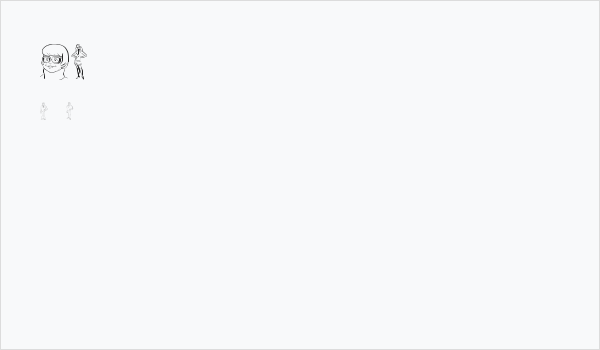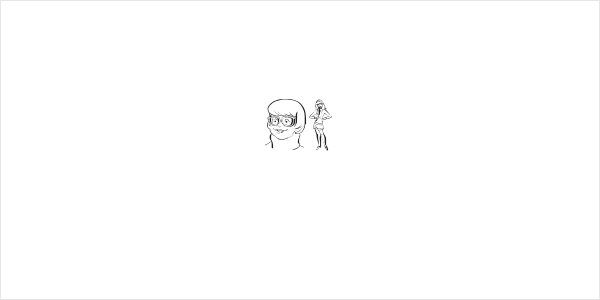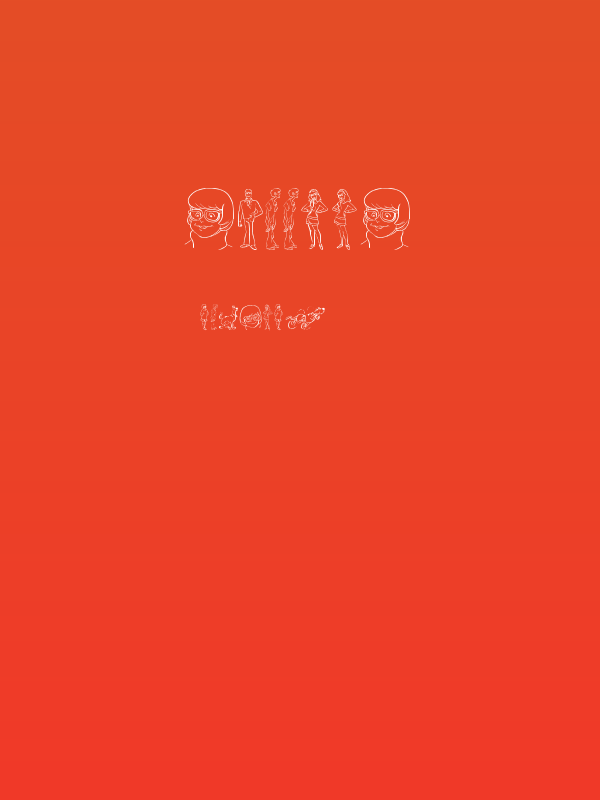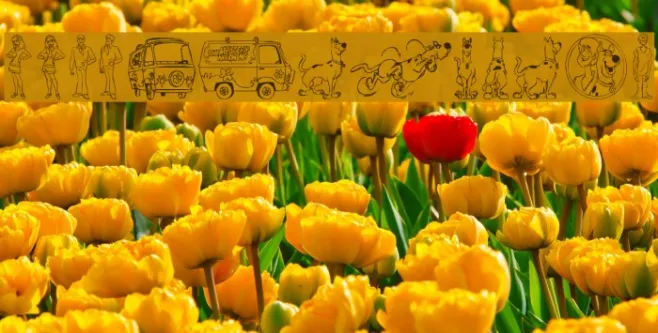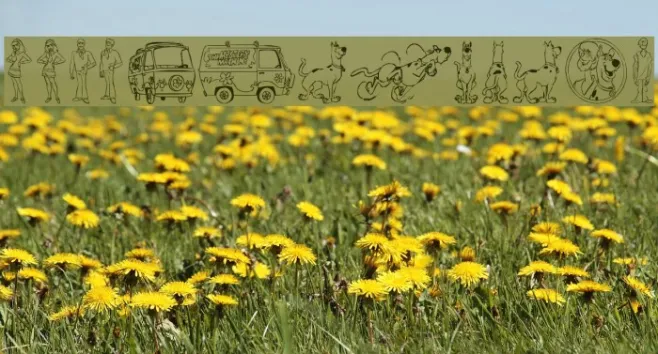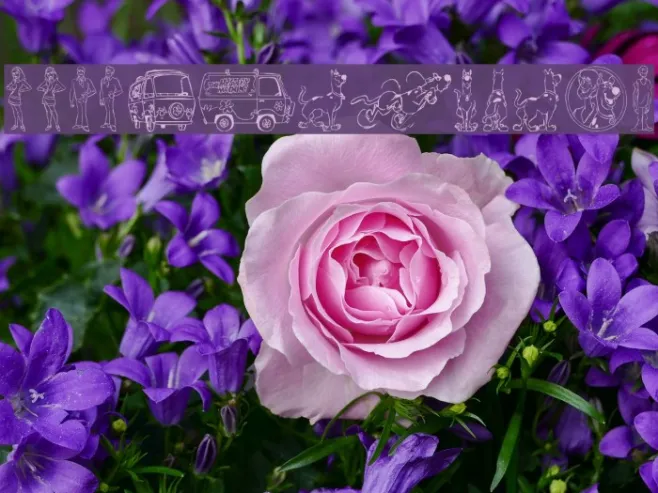
ScooBats Font
ScooBats Description
A decorative display font composed of cartoon-style illustrations of characters, vehicles, and objects, each representing a different letter or symbol. The glyphs are detailed line drawings with a playful and nostalgic theme.
| Overall Style | Decorative, Playful, Nostalgic |
| Use Case | Headlines, Posters, Themed Graphics |
| Proposed Projects | Children's party invitations, themed event posters, comic books, novelty merchandise, educational materials. |